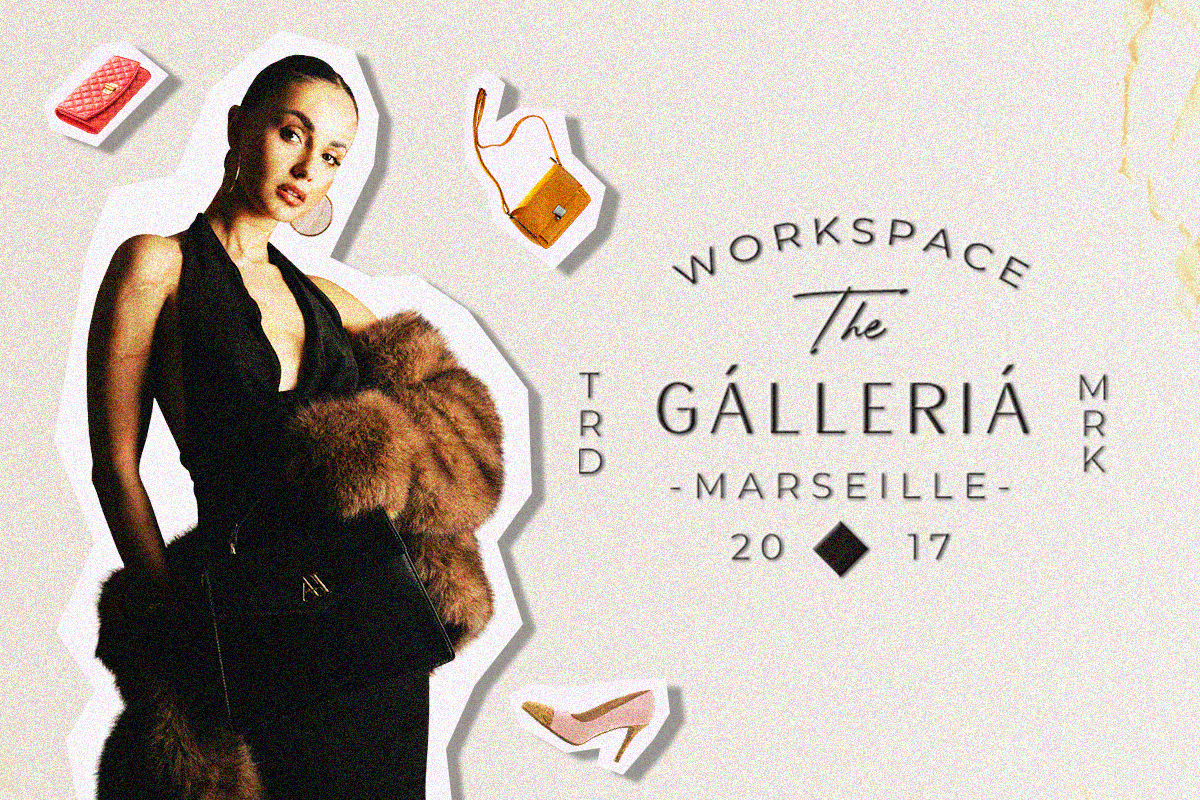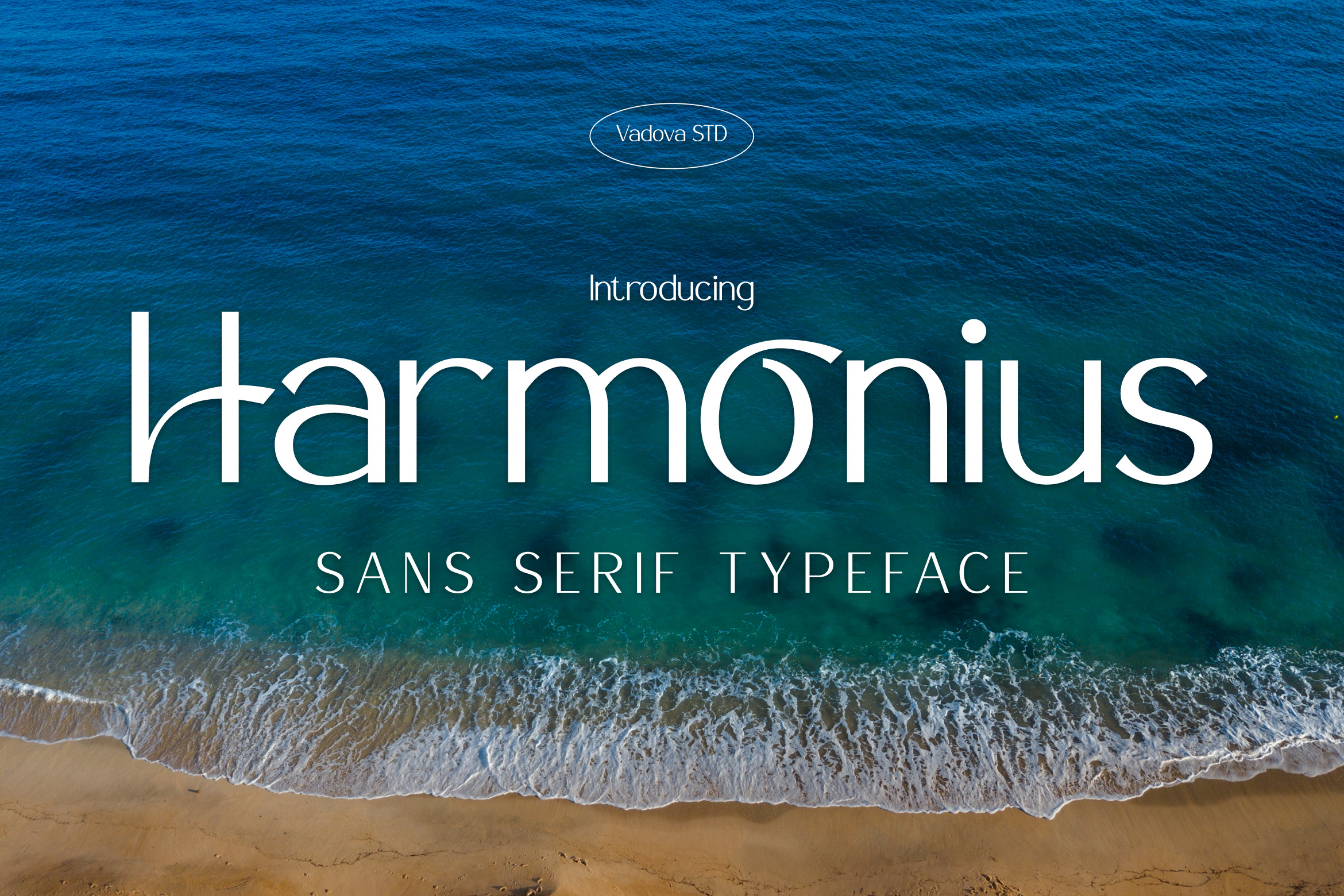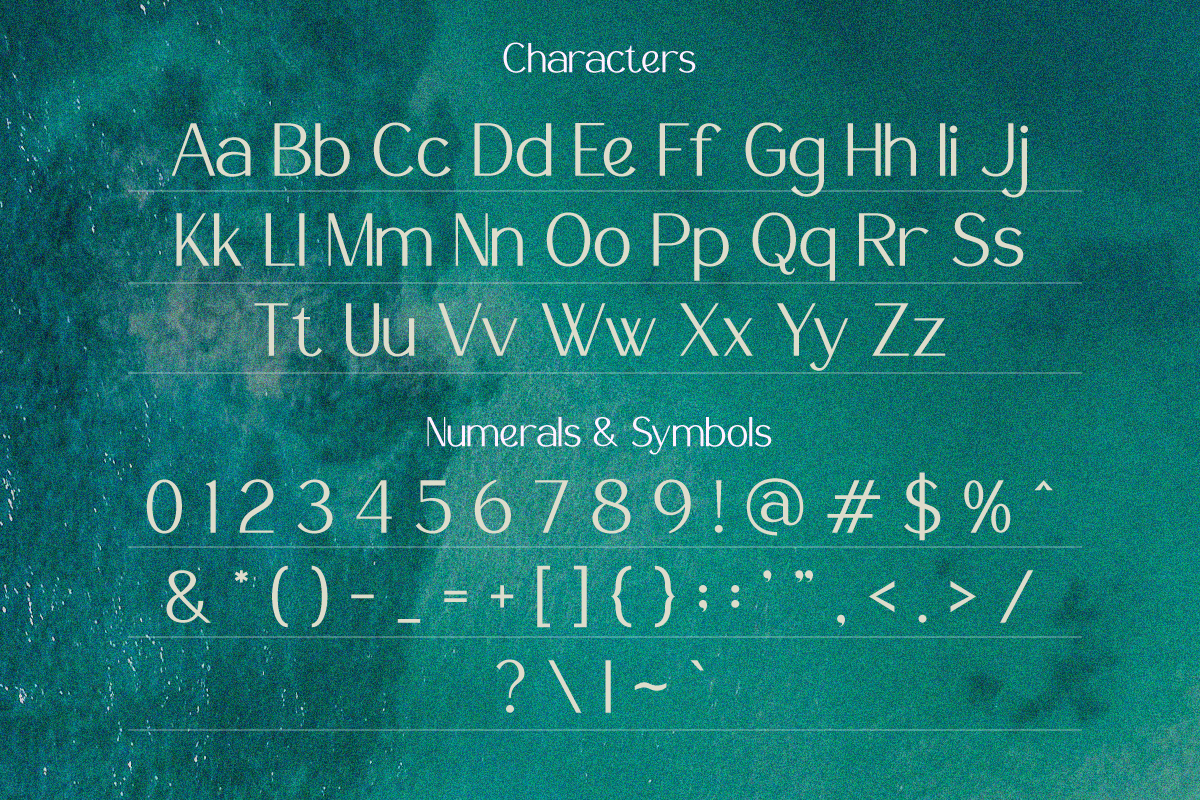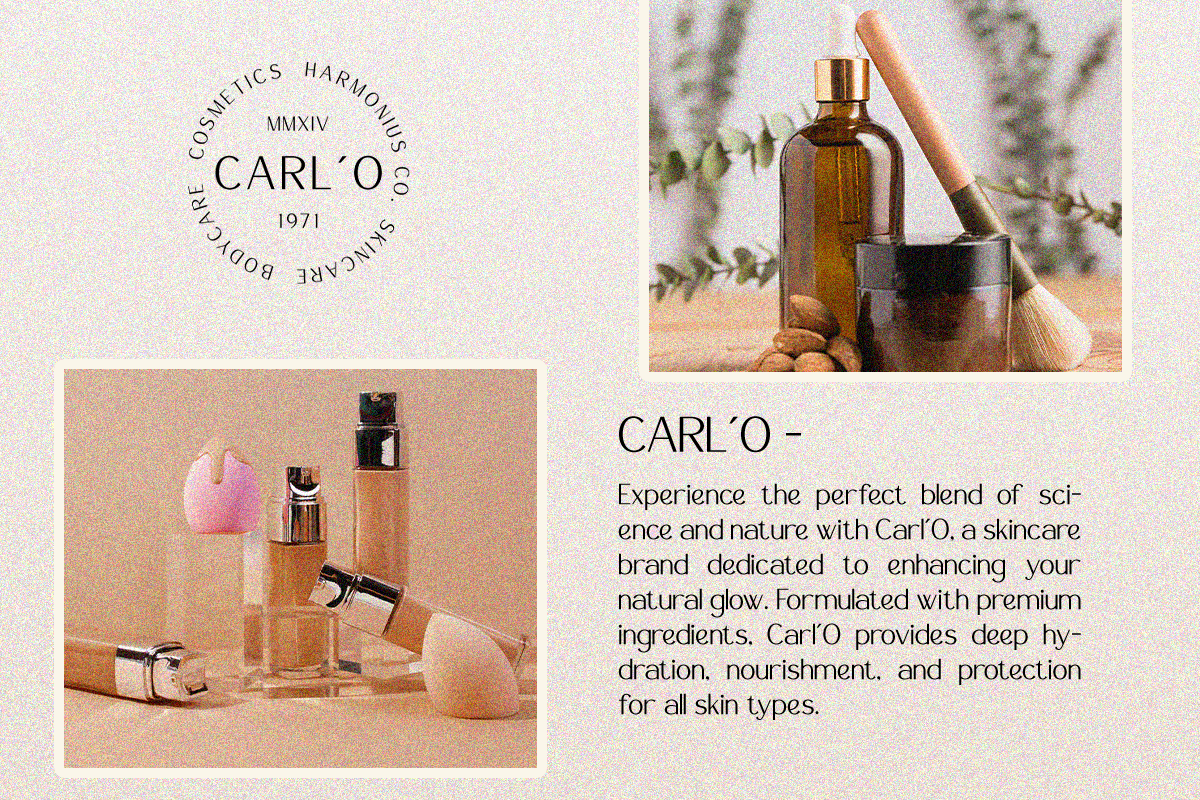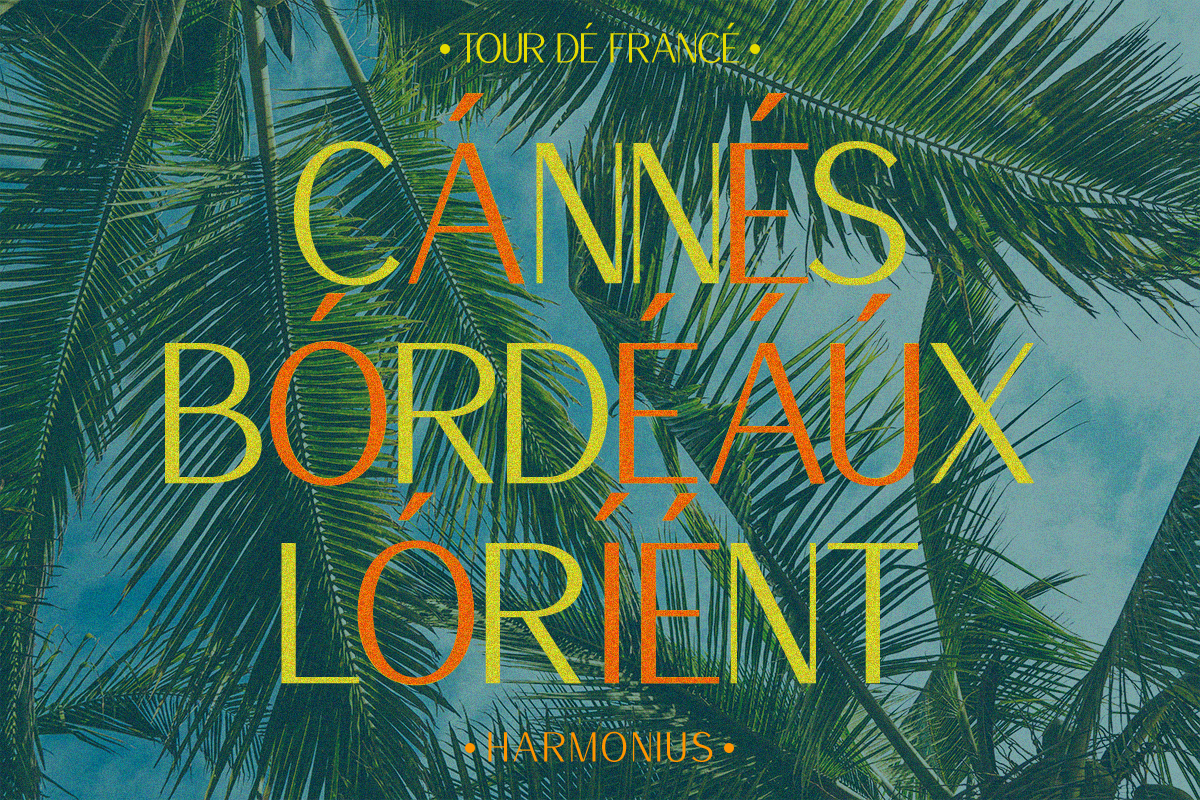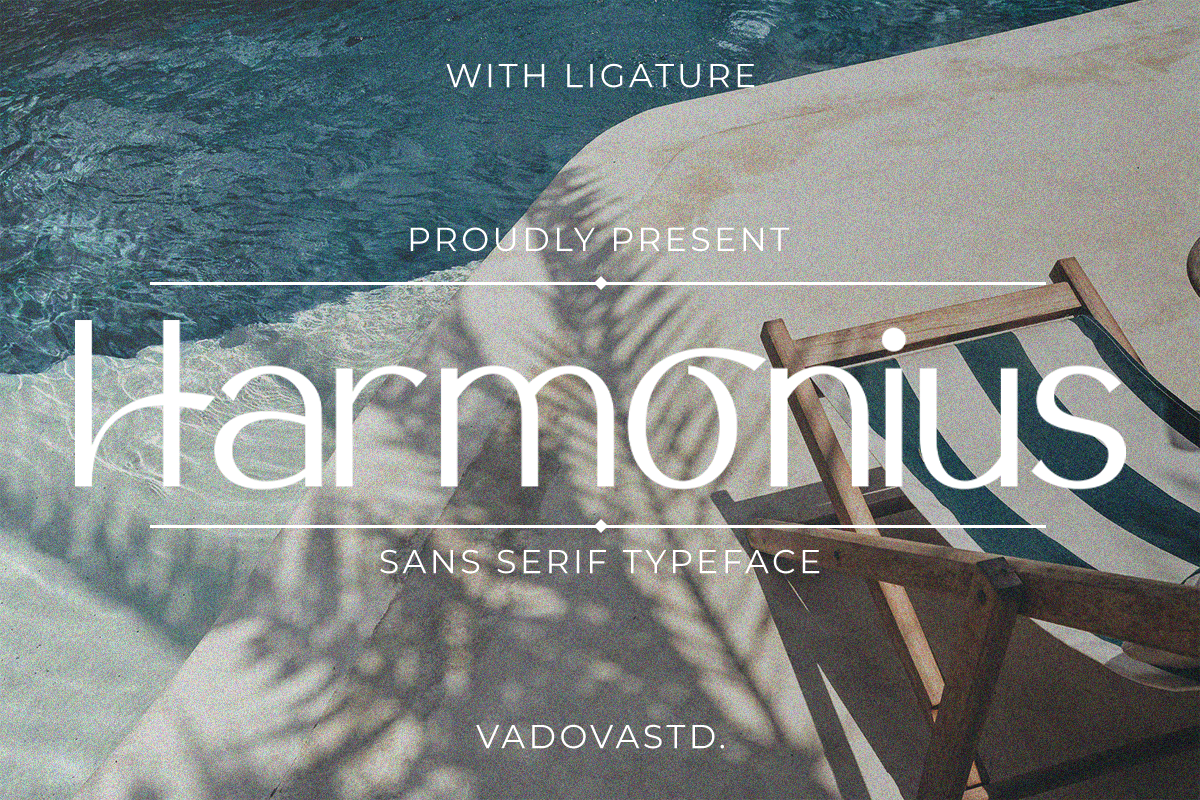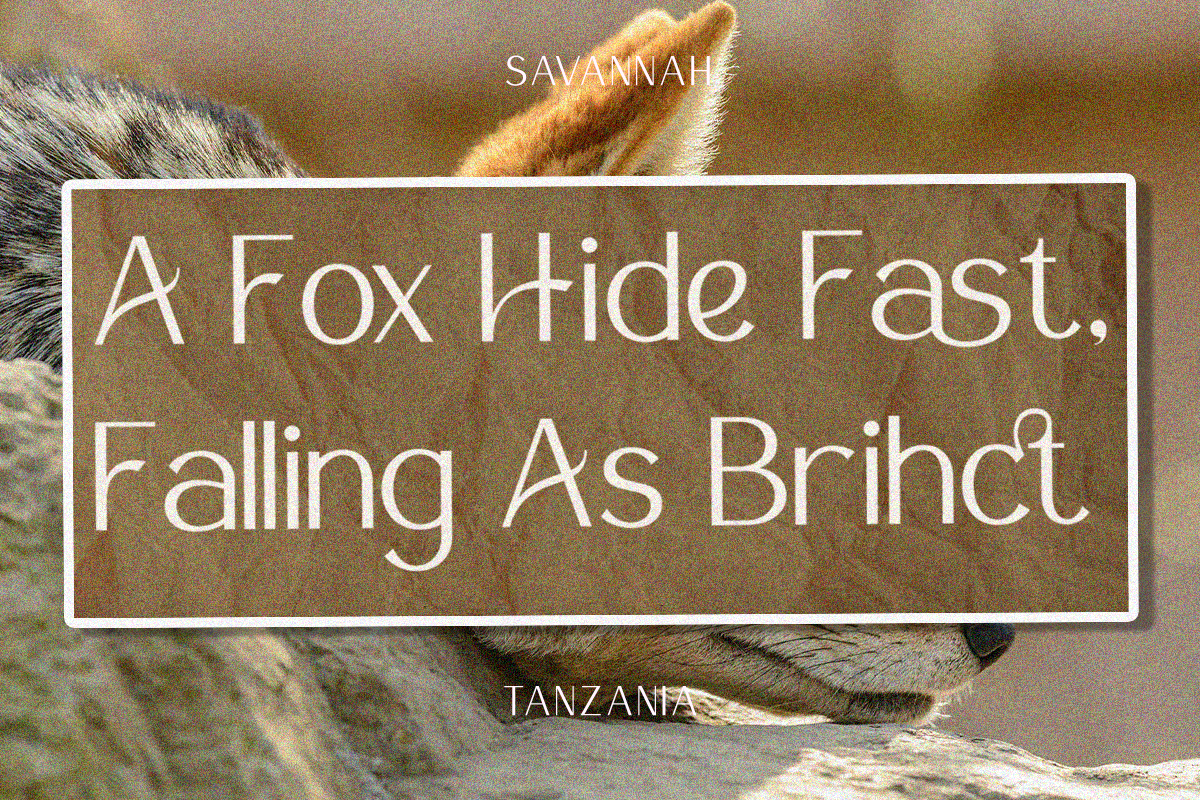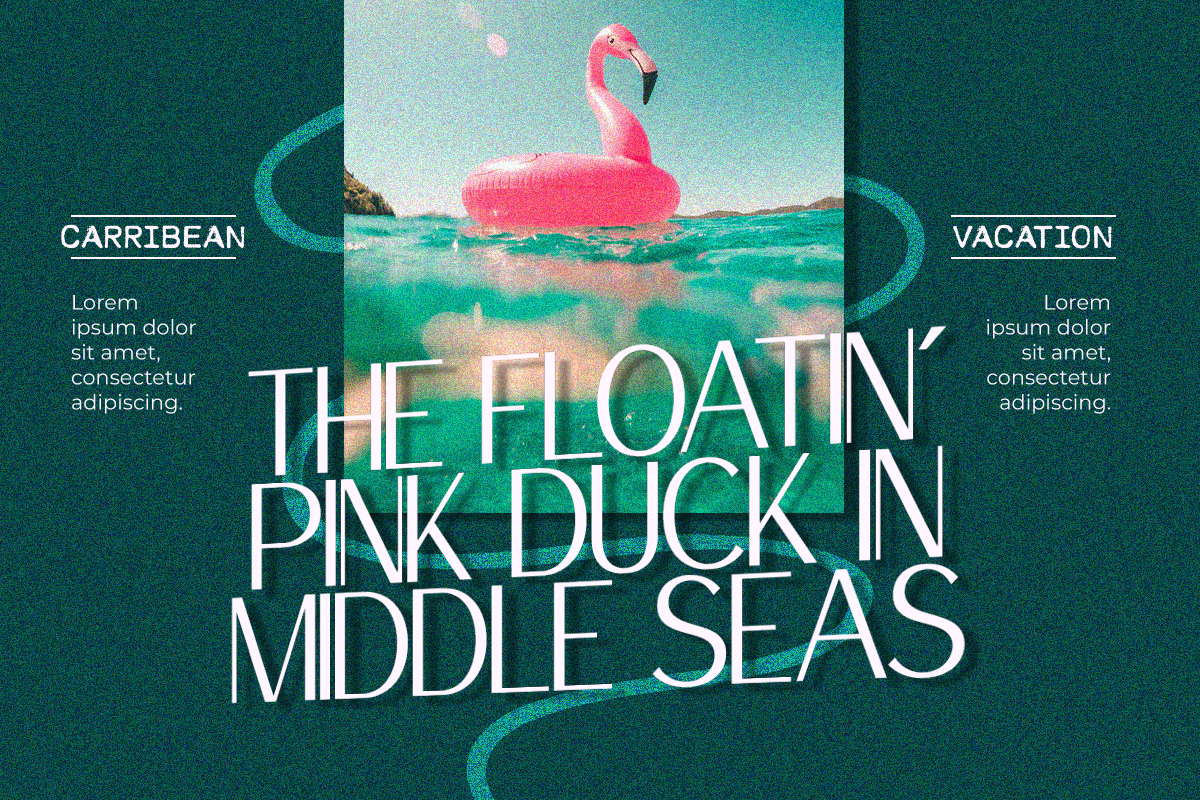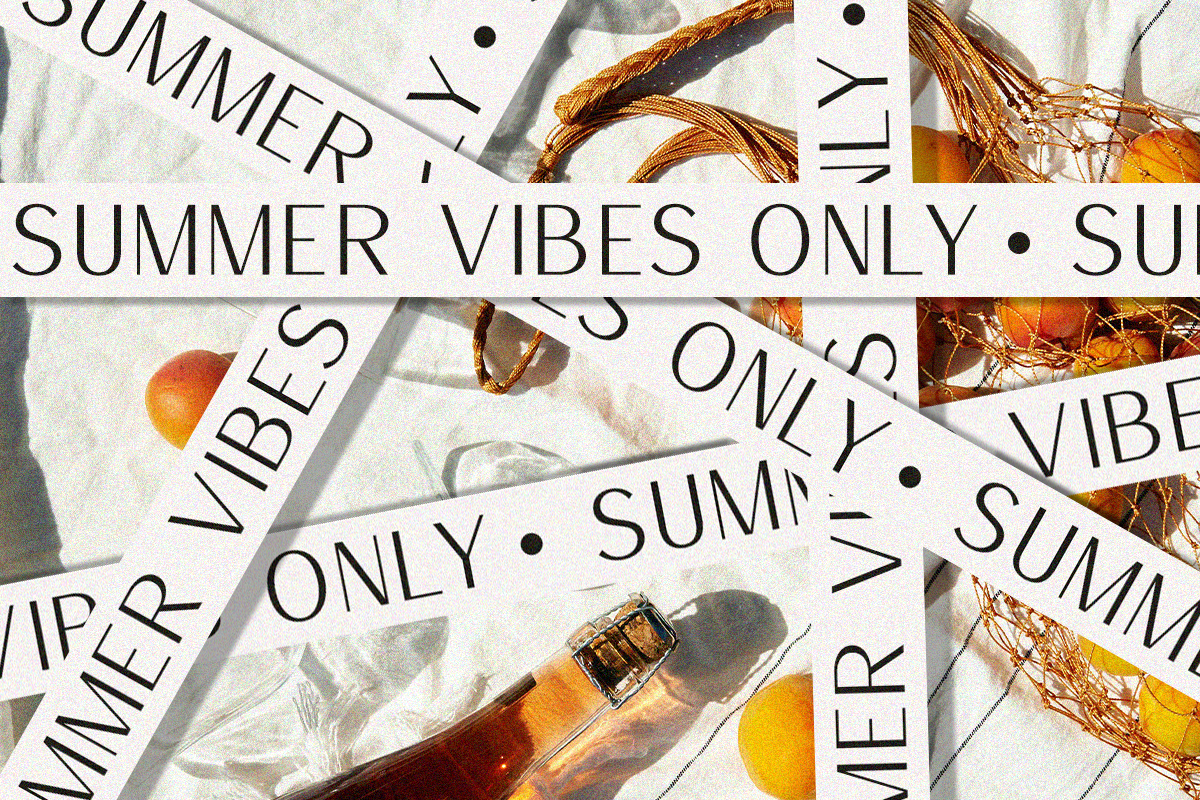
Harmonius Sans Serif Typeface Font
Harmonius is a modern sans serif typeface designed with clean geometry, smooth curves, and balanced proportions to create a refined and versatile typographic voice. Its minimalist structure and elegant spacing make it suitable for both striking headlines and comfortable body text, delivering clarity, sophistication, and contemporary visual harmony.
Harmonius is perfect for modern branding systems, corporate identities, editorial magazines, website typography, UI/UX projects, product packaging, marketing materials, and social media visuals. Its balanced and elegant design makes it suitable whenever a clean, professional, and contemporary typographic presence is required.
- Modern sans serif structure with balanced geometric proportions
- Clean minimalist letterforms for a refined contemporary look
- Smooth curves and subtle rounded details for comfortable readability
- Consistent stroke weight for a stable and professional appearance
- Carefully crafted spacing for both headlines and body text
- Brand identity systems requiring a clean, modern, and professional tone
- UI/UX templates for contemporary websites, apps, and tech products
- Editorial magazines, lookbooks, and minimalist book typography
- Product packaging, labels, and luxury branding with refined aesthetics
- Social media templates and marketing materials with elegant clarity